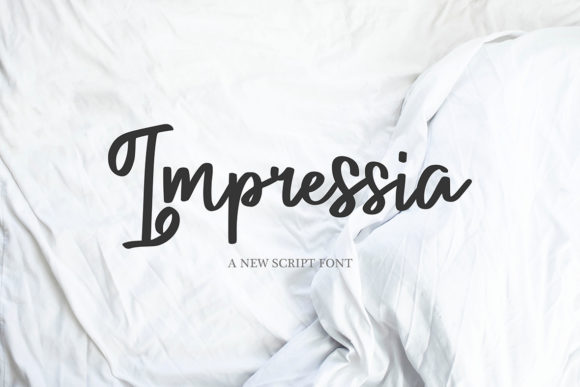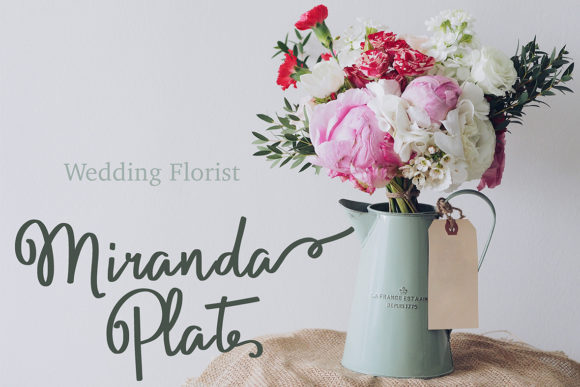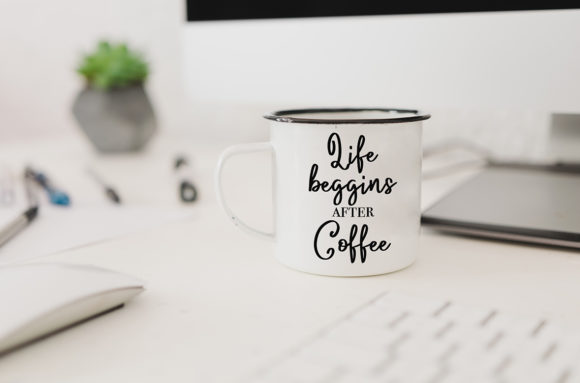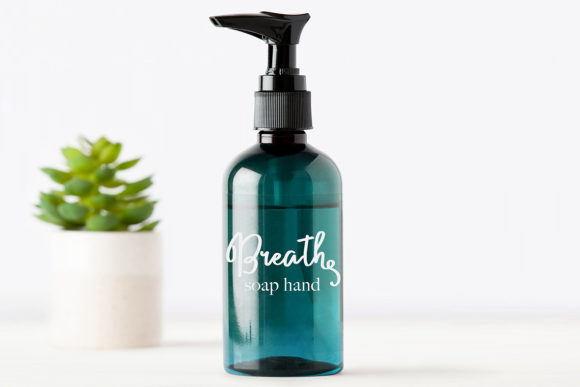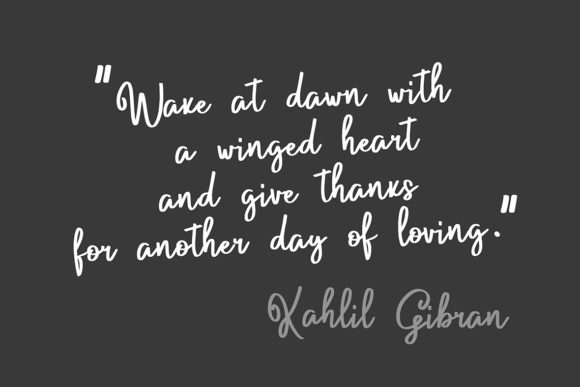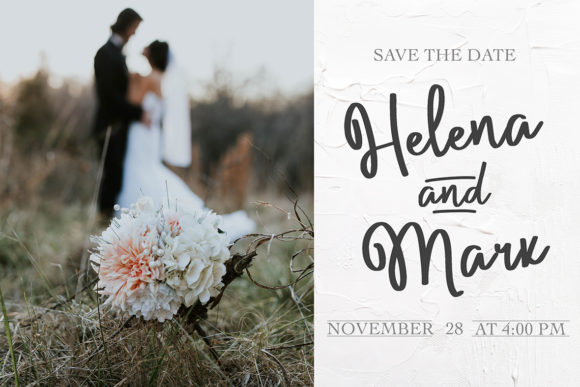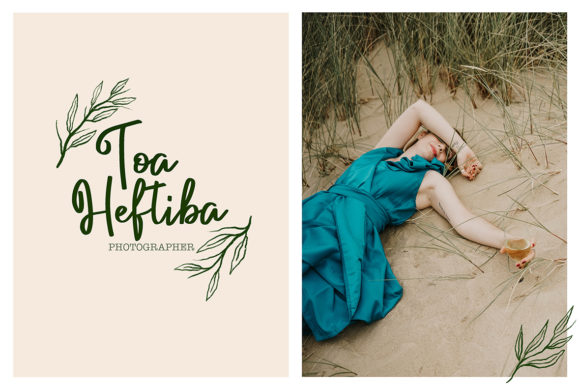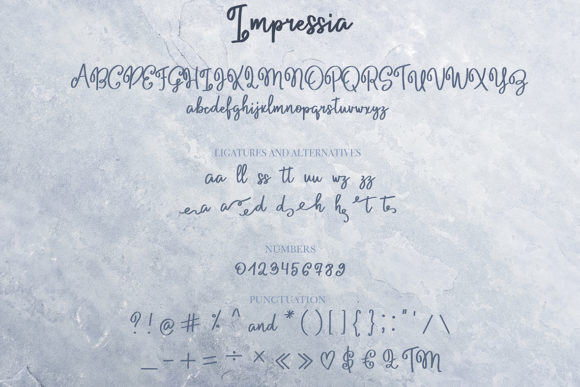
Impressia Font
About Impressia Font
Impressia is a sweet and cool handwritten font with a unique style. Use it to turn any design project into a true standout!